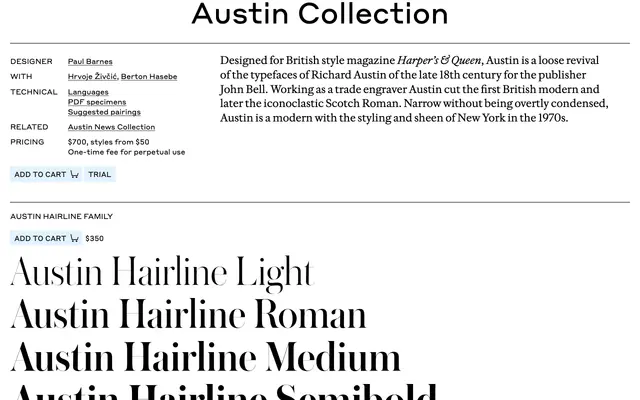
Austin
Commercial Type · Paul Barnes
Paul Barnes's loose revival of Richard Austin's modern, drawn for Harper's & Queen and now a default for fashion and editorial work.
A modern serif by Paul Barnes drawn for the British style magazine Harper's & Queen. A loose revival of the late 18th century typefaces of Richard Austin for the publisher John Bell, who cut the first British modern and later the iconoclastic Scotch Roman. Narrow without being overtly condensed, with the styling and sheen of New York in the 1970s, it has become a default for fashion mastheads and high-contrast editorial work. Developed with Hrvoje Zivcic and Berton Hasebe.
A loose revival by Paul Barnes of the late 18th century typefaces of Richard Austin for the publisher John Bell. A British modern with Scotch Roman heritage, narrow without being overtly condensed. Developed with Hrvoje Zivcic and Berton Hasebe across multiple optical sizes from Hairline to Text.